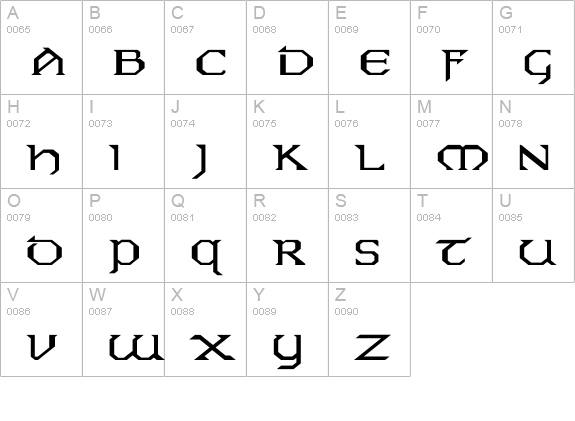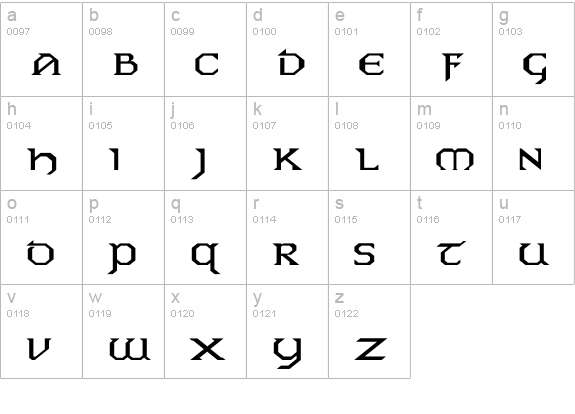
Eire Wd font is a modern and stylish typeface that exudes elegance and sophistication. With its unique design and sleek lines, this font is perfect for adding a touch of class to any project. Whether you're creating a logo, designing a website, or crafting a social media post, Eire Wd font will make your text stand out. The best part? Eire Wd font is completely free to download at FontsMarket.com! That's right, you can enhance your designs with this beautiful font without having to spend a penny. So why wait? Head over to FontsMarket.com and grab your free copy of Eire Wd font today!